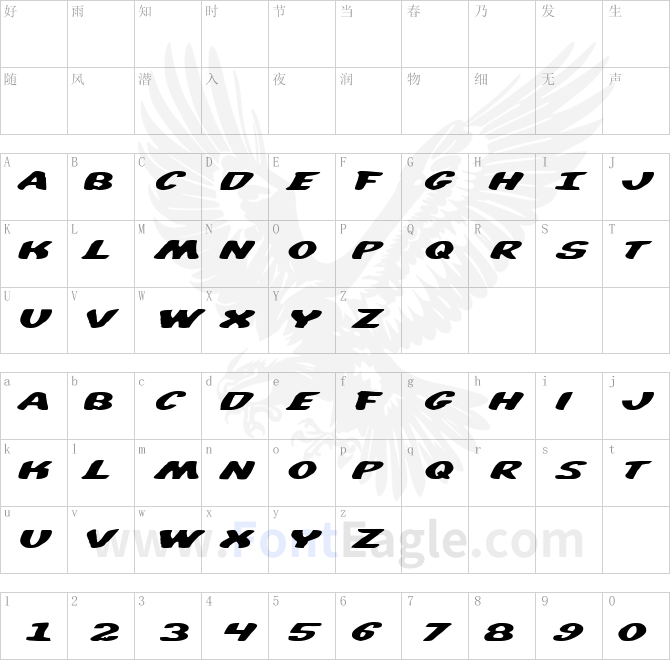
- Font name:DiegoCon
- Font Subfamily:DiegoCon Italic
- Font Subfamily ID:DiegoCon Italic
- Font Full Name:DiegoCon Italic
- Postscript:DiegoConItalic